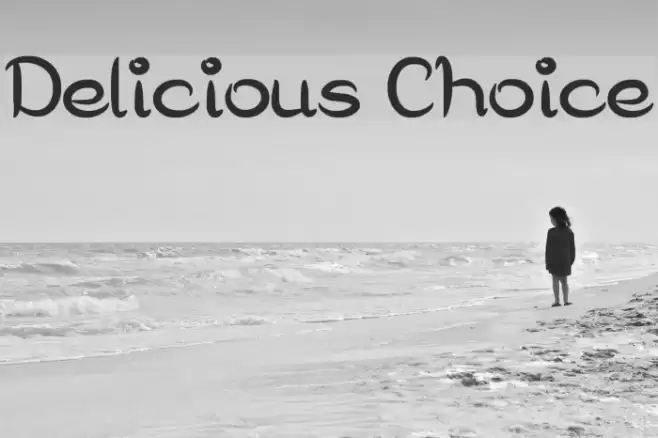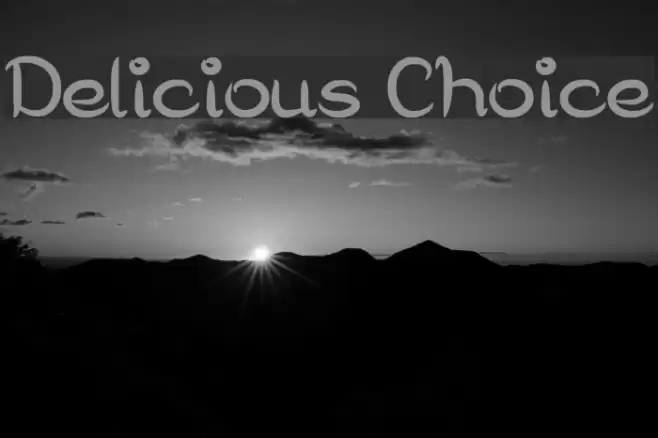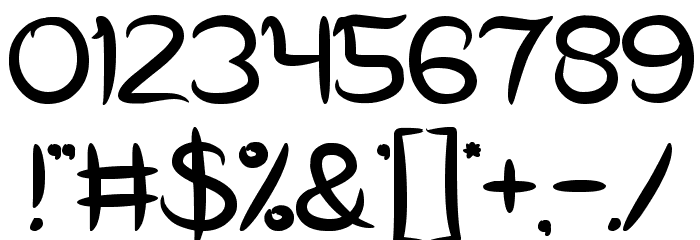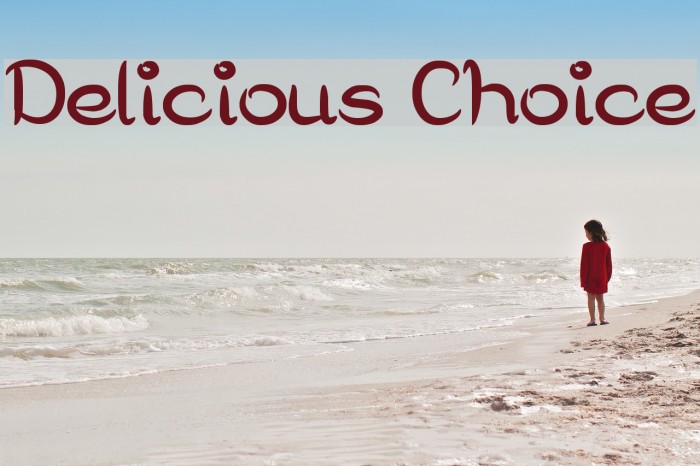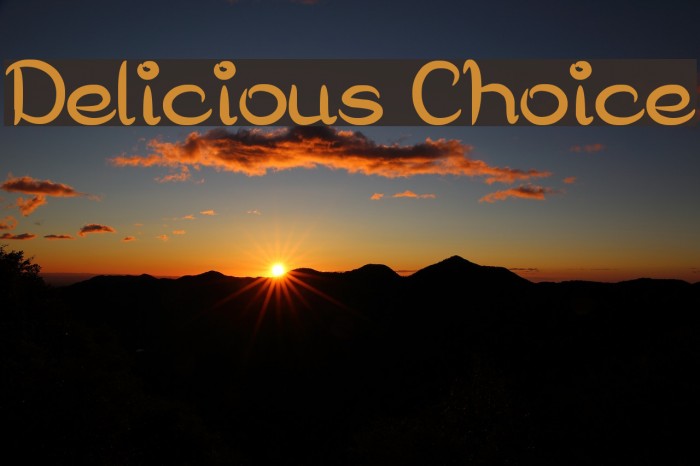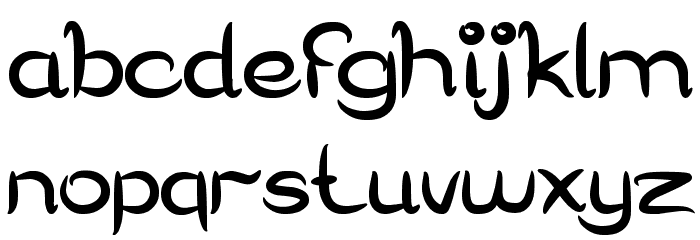
Delicious Choice Font
Delicious Choice Description
This font features a playful and whimsical style, characterized by its rounded, flowing letterforms that convey a sense of fun and creativity. The strokes are moderately thick, providing a bold appearance without being overwhelming. The uppercase and lowercase letters maintain a consistent style, with unique flourishes that add personality. The numerals and special characters are designed to match the overall aesthetic, ensuring a cohesive look across all text. This font is ideal for projects that require a touch of whimsy and charm, making it perfect for children's books, playful branding, or creative invitations.
A playful, whimsical font with rounded, flowing letterforms and moderate stroke thickness from Uncategorized fonts.
- Proposed Projects: Children's books, playful branding, creative invitations, posters, and greeting cards.
- Overall Style: Playful, Whimsical
- Use Case: Headlines, Logos, Invitations